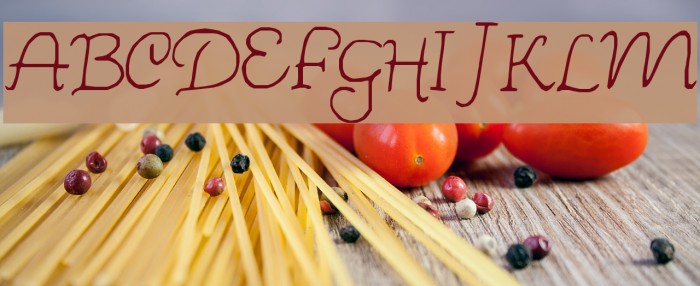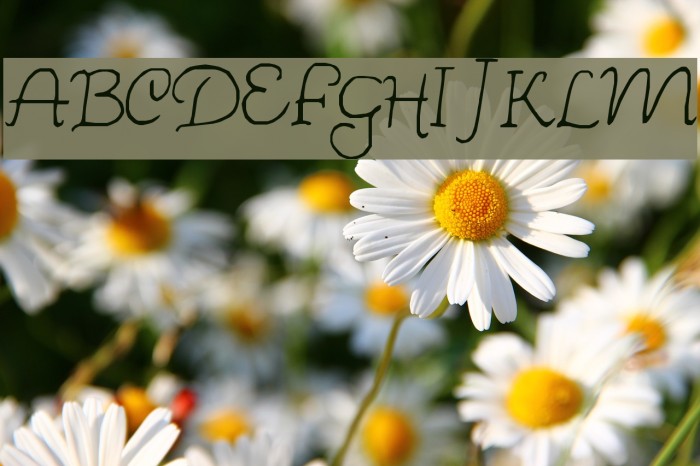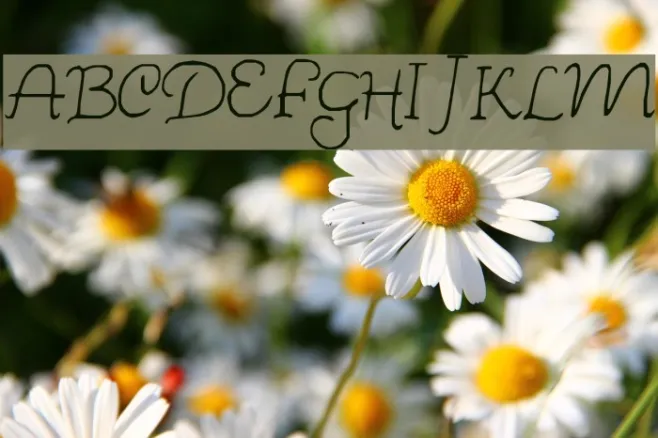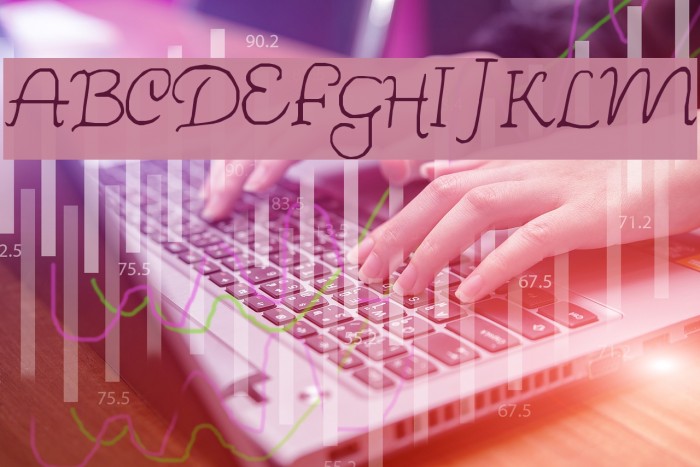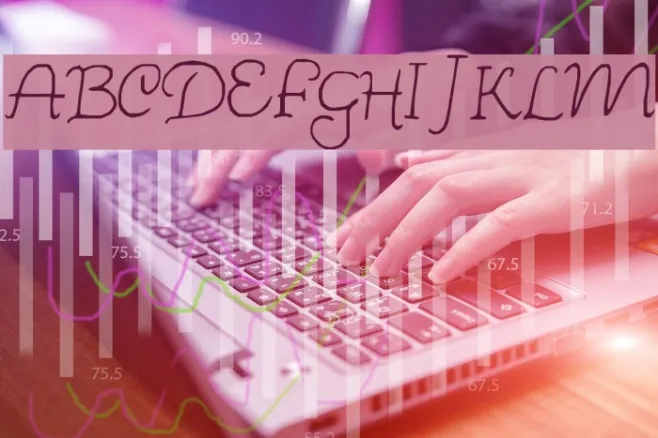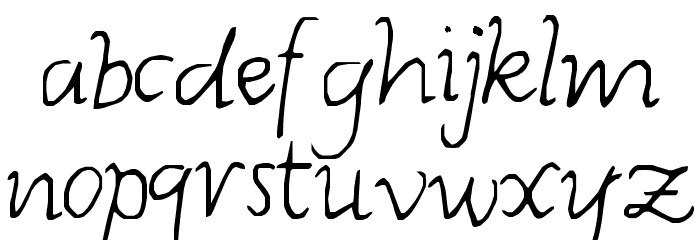
Wishes Font
Wishes Description
This font features a flowing, handwritten style that exudes elegance and a personal touch. The letters are connected in a cursive manner, with smooth curves and a consistent stroke width that gives it a harmonious appearance. The uppercase letters are slightly more ornate, with some featuring subtle flourishes that add to the overall charm. The lowercase letters maintain a uniform height, contributing to the font's readability. Numbers and special characters are crafted with the same attention to detail, ensuring they blend seamlessly with the alphabet. This font is ideal for projects that require a touch of sophistication and warmth.
| Overall Style | Elegant, Handwritten |
| Use Case | Logos, Invitations, Personal Branding |
| Proposed Projects | Wedding invitations, greeting cards, personal branding, and elegant stationery. |